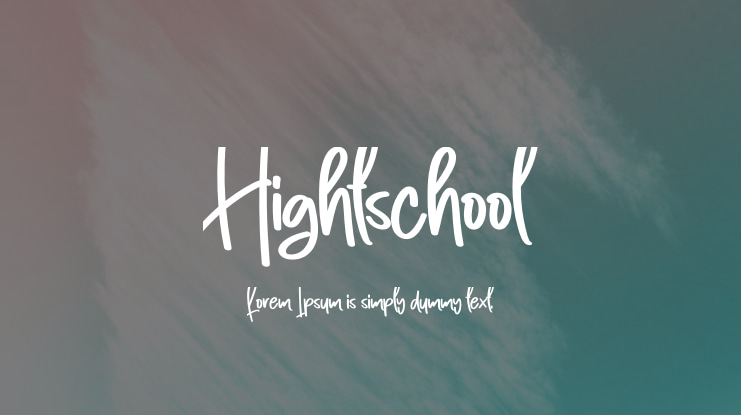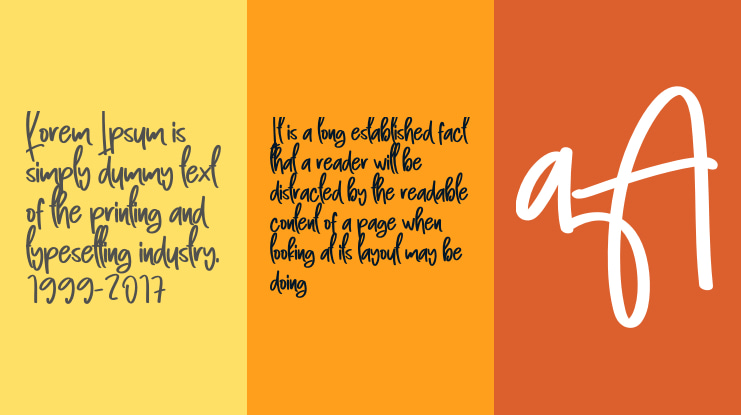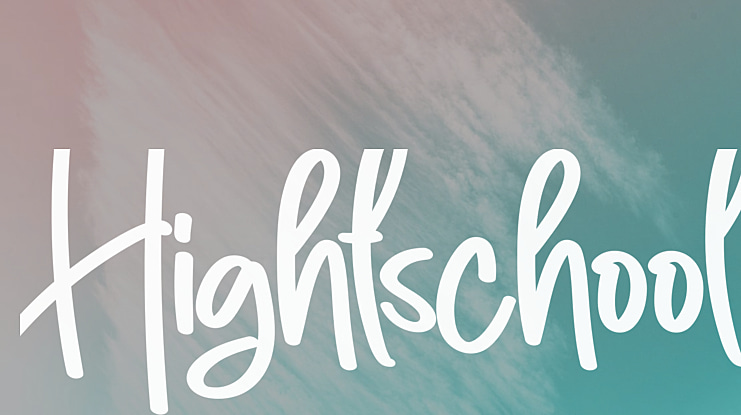
Hightschool Font
Our latest collection of stylish fonts is perfect for a variety of purposes including wall displays, wedding invitations, social media logos, advertisements, product packaging, labels, photography, watermarks, invitations, stationery, and any project that requires beautiful handwriting.